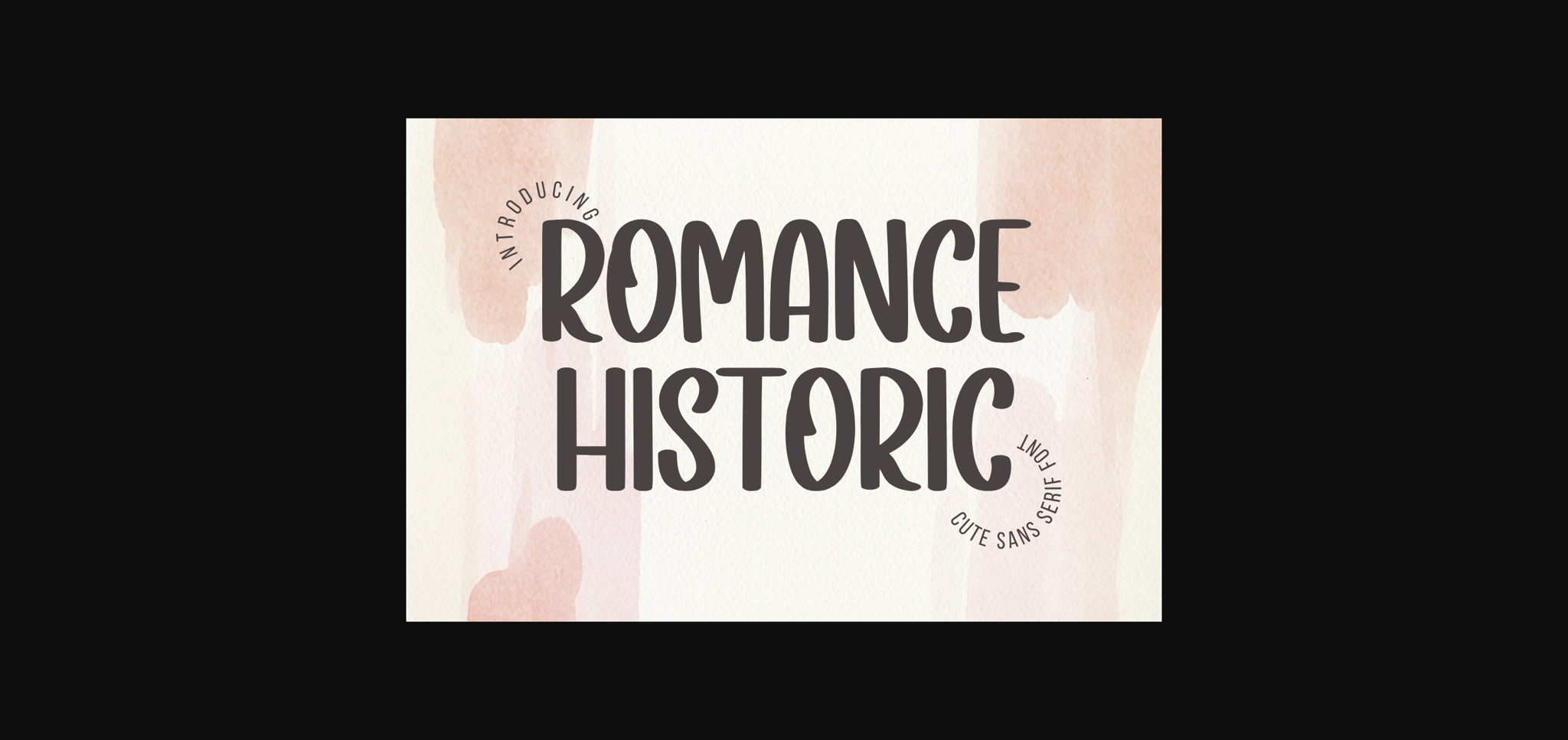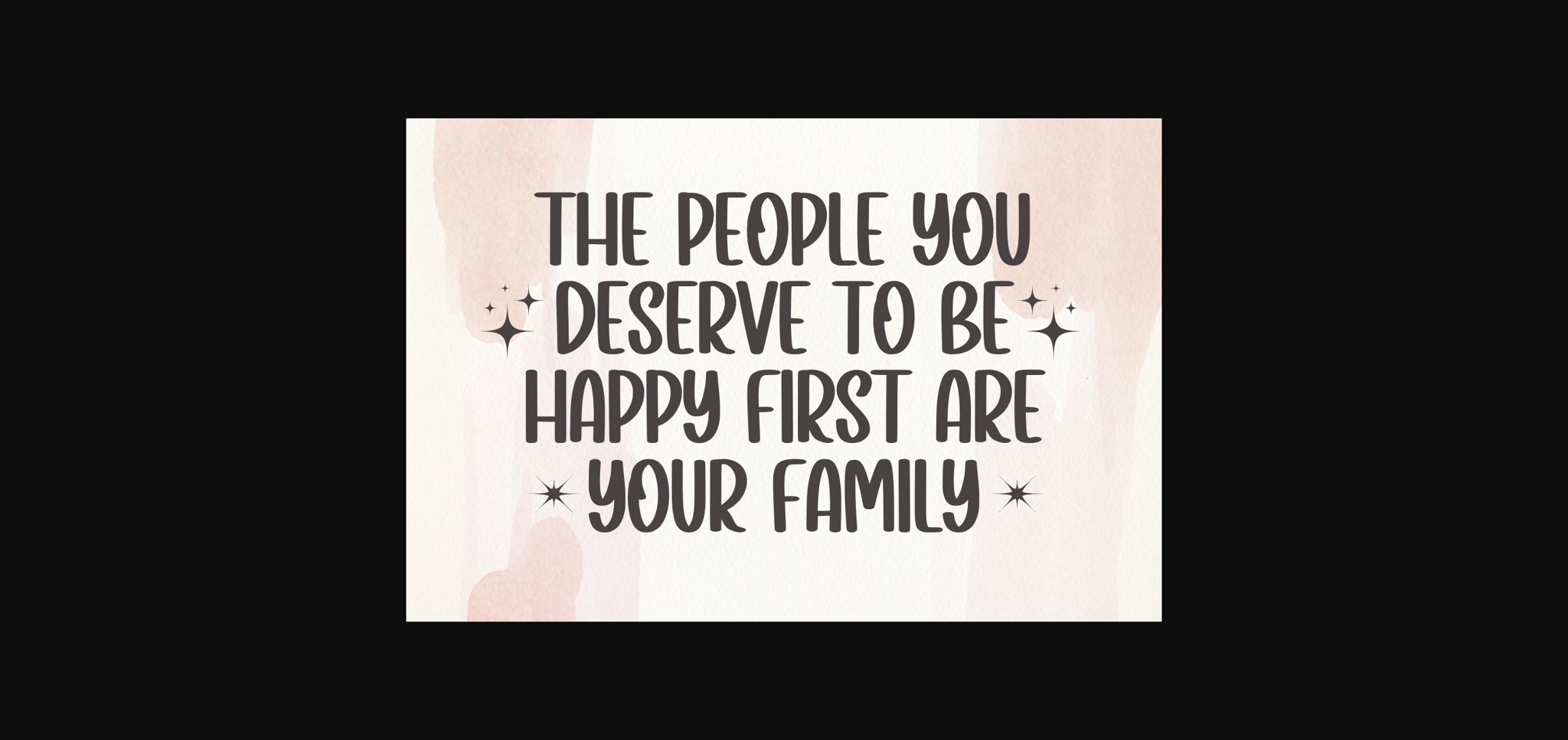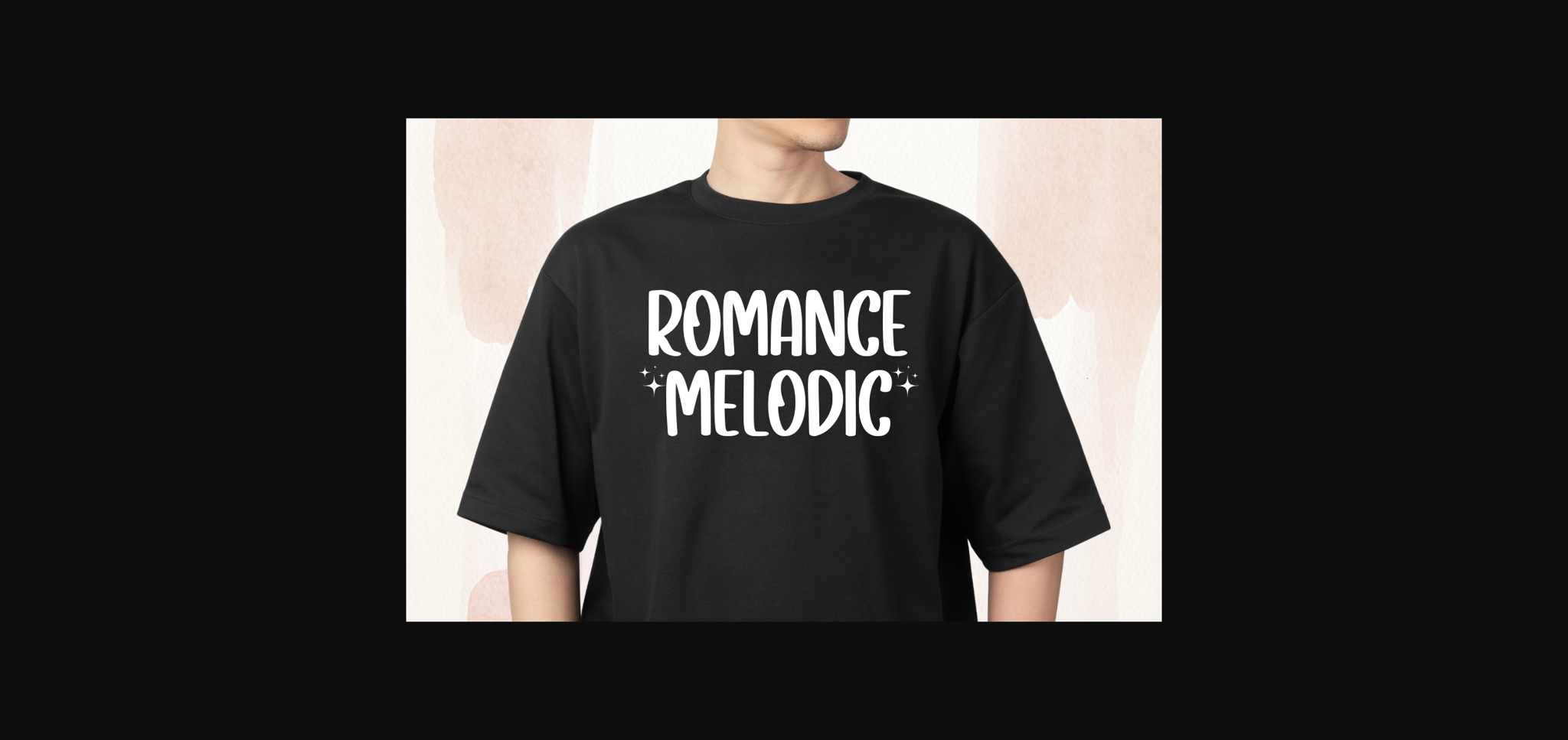
About Romance Historic Font
Romance Historic is a simple yet elegant sans-serif font with clean lines and a timeless appeal. Its understated design exudes sophistication and readability, making it ideal for various applications, from branding and editorial design to signage and web content. Embrace clarity and elegance with Romance Historic.